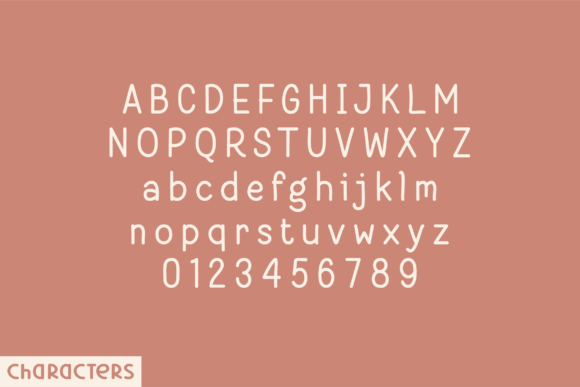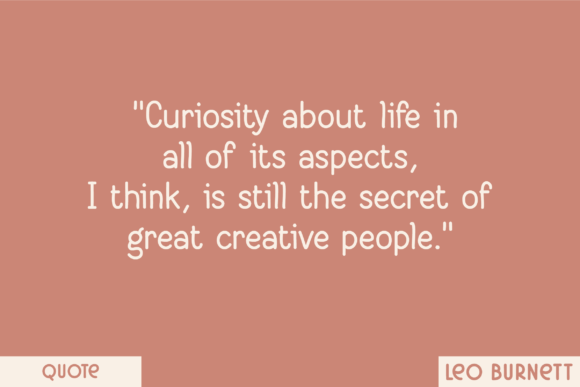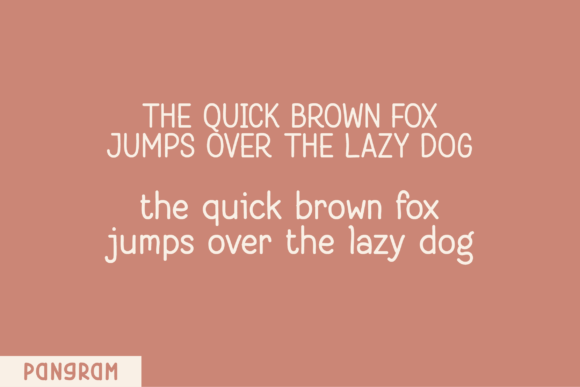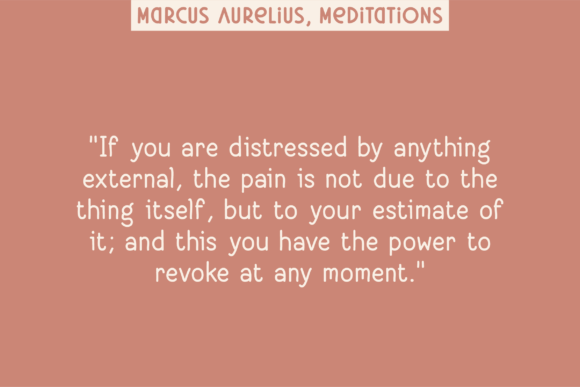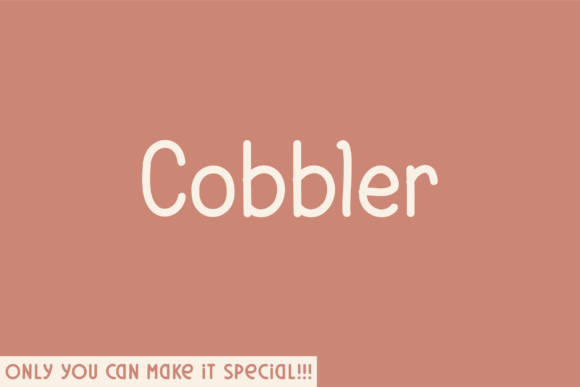
Cobbler Font: A Unique Sans Serif Font for Creative Designs
In the world of typography, fonts play a crucial role in conveying messages, expressing emotions, and creating visual identities. For designers and crafters, finding the perfect font can make all the difference in their creative projects. If you’re looking for a font that’s both interesting and unique, look no further than Cobbler Font. In this article, we’ll explore the features and benefits of Cobbler Font, and why it’s perfect for quotes, notes, tees, and any product design.
What is Cobbler Font?
Cobbler Font is a natural sans serif font that’s been crafted with precision and attention to detail. What sets it apart from other fonts is its unique approach to character indentation. Unlike traditional fonts, Cobbler Font was created without changing a single node in each character’s indentation. This approach gives the font a distinctive look that’s both modern and elegant.
Key Features of Cobbler Font
- Unique Character Indentation: As mentioned earlier, Cobbler Font’s character indentation is unaltered, making it a standout in the world of typography.
- Natural Sans Serif: The font has a natural, effortless feel that’s perfect for designs that require a subtle touch.
- High Versatility: Cobbler Font is suitable for a wide range of design projects, from quotes and notes to tees and product design.
- Elegant and Modern: The font’s unique features give it a modern and elegant look that’s sure to impress.
Why Use Cobbler Font?
So, why should designers and crafters choose Cobbler Font for their projects? Here are a few compelling reasons:
- Adds Visual Interest: Cobbler Font’s unique character indentation adds visual interest to any design, making it perfect for projects that require a creative edge.
- Enhances Readability: The font’s natural sans serif design ensures that text is easy to read, even at smaller sizes.
- Versatile and Adaptable: Cobbler Font can be used in a variety of design contexts, from digital projects to print materials.
- Perfect for Branding: The font’s elegant and modern look makes it an excellent choice for branding and identity design.
Design Ideas Using Cobbler Font
Cobbler Font is an incredibly versatile font that can be used in a wide range of design projects. Here are a few ideas to get you started:
- Quotes and Inspirational Messages: Use Cobbler Font to create inspiring quotes and messages that feature a unique and elegant look.
- Notes and Journals: Add a touch of sophistication to your notes and journals with Cobbler Font.
- T-Shirts and Apparel: Create eye-catching tees and apparel with Cobbler Font’s modern and elegant design.
- Product Design: Use Cobbler Font to create stunning product designs that feature a unique and creative look.
In conclusion, Cobbler Font is a unique and versatile sans serif font that’s perfect for designers and crafters looking to add a creative edge to their projects. With its natural design, elegant look, and high versatility, Cobbler Font is an excellent choice for quotes, notes, tees, and any product design. Whether you’re a seasoned designer or a crafty enthusiast, Cobbler Font is sure to inspire and elevate your creative projects.